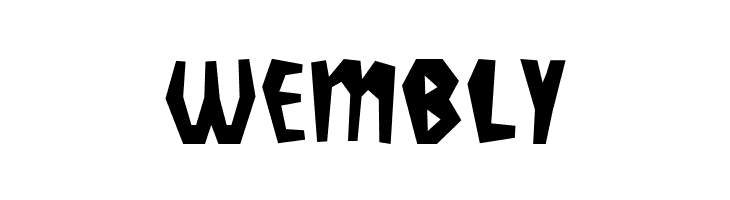
BlowBrush Font
- Font: BlowBrush
( Fonts by Cumberland Fontworks - http://www222.pair.com/sjohn/fonts.htm - S. John Ross )
A bold, playful font with a hand-drawn, sketch-like appearance.